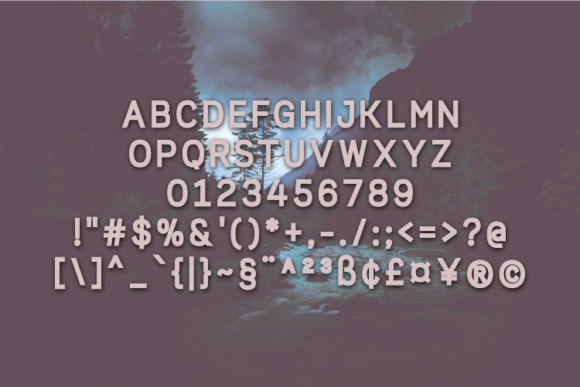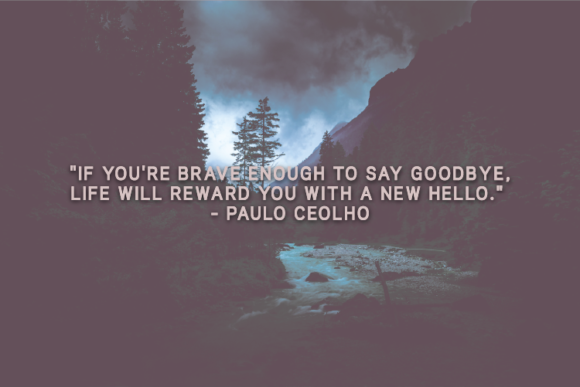
I still remember the frustration of working on a project, hours poured into every detail, only to hit a roadblock: finding the right font. My client wanted something modern, clean, and versatile. I scoured the internet, tried countless fonts, but nothing seemed quite right. That was until I stumbled upon Datekole, a minimal and neat sans serif font that transformed my design. In this article, I’ll share my experience with Datekole, its features, and how to make the most of it in your creative projects.
First Impressions: A Love Affair with Datekole
Datekole quickly won me over with its simplicity and elegance. Here are what I love about it:
- ✨ Clean and Minimal Design: Datekole’s sans serif design makes it perfect for modern projects, giving them a fresh and contemporary feel.
- ✅ Versatility: Its neutral tone allows it to fit seamlessly into a wide range of projects, from digital applications to print materials.
- 💡 Excellent Legibility: Even at smaller sizes, Datekole remains clear and easy to read, making it ideal for body text.
No font is perfect, and Datekole has a few quirks to consider:
- 🤔 Limited Extras: Datekole keeps things simple, which might be a drawback for designers looking for a wide range of stylistic alternates or glyphs.
- ⚠️ Overuse of Bold Weights: While Datekole’s bold weights are striking, overusing them can make a design feel heavy-handed.
The Story Behind Datekole: Designer Inspiration
Datekole was crafted with the modern designer in mind. Its creator aimed to produce a font that was both minimalistic and highly legible, perfect for a wide array of projects. While the specific backstory might be fictional, it’s clear that Datekole was designed to fill a gap in the font market: a clean, versatile sans serif that doesn’t overwhelm but rather complements a design.
| Font Name | Datekole Font |
| Author | Nan Design |
| Is Datekole suitable for body text? | Yes, Datekole’s clear design makes it suitable for body text, even at smaller sizes. |
| Does Datekole support OpenType features? | Depending on the version, Datekole may support basic OpenType features like ligatures. Check the font documentation for specifics. |
Datekole’s emergence has been a breath of fresh air for designers seeking a clean, versatile sans serif font. Its simplicity, elegance, and legibility make it an excellent choice for a wide range of projects. Whether you’re working on a digital app, a print project, or anything in between, Datekole can help elevate your design.